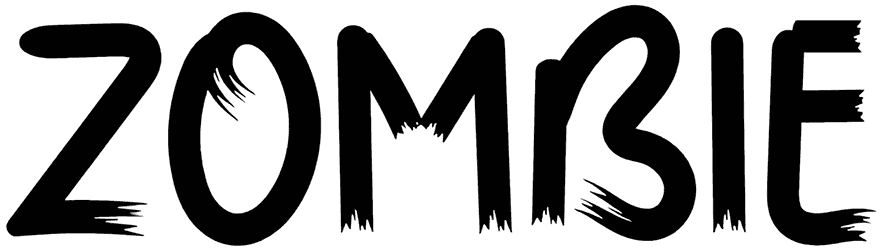
Zombie Font
Bring a new level of chill to your Halloween creations with Zombie, the holiday font. Excellent for Halloween-themed projects, including invitations, posters, flyers, and more. Your projects will stick out and be remembered with the help of the spooky yet elegant Zombie font.